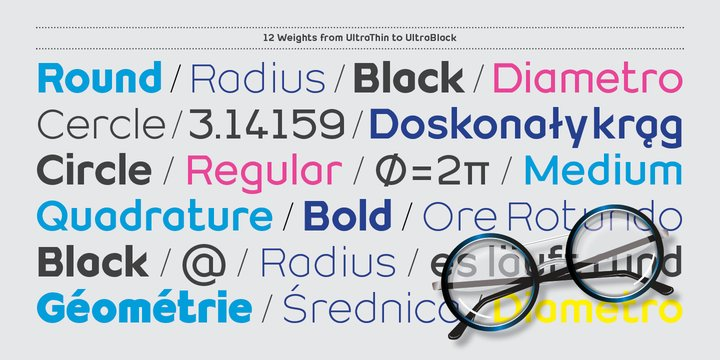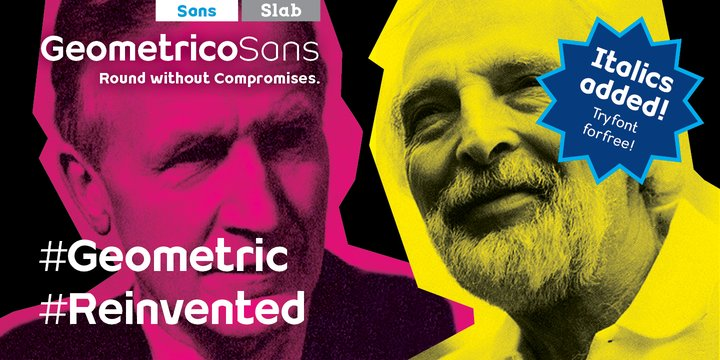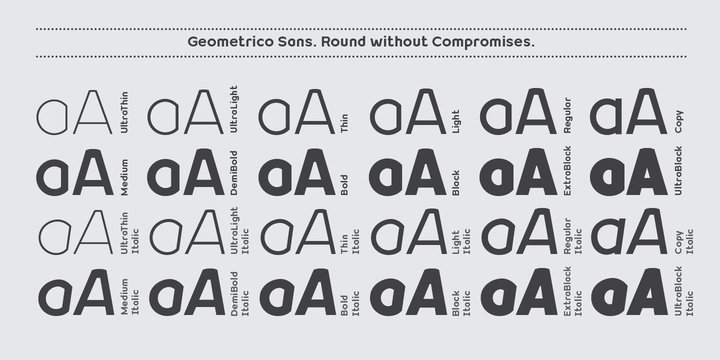
Geometrico Sans Font Family
Geometrico Sans Font FamilyNow 12 Italic Styles added. Even more futuristic than the classical Bauhaus typeface Futura, “Geometrico” is a geometric typeface based on round shapes as suggested by its name. Designed without compromises, neither in form nor in function: Geometrico is ideal for logotypes, headlines and other modern typographic purposes.